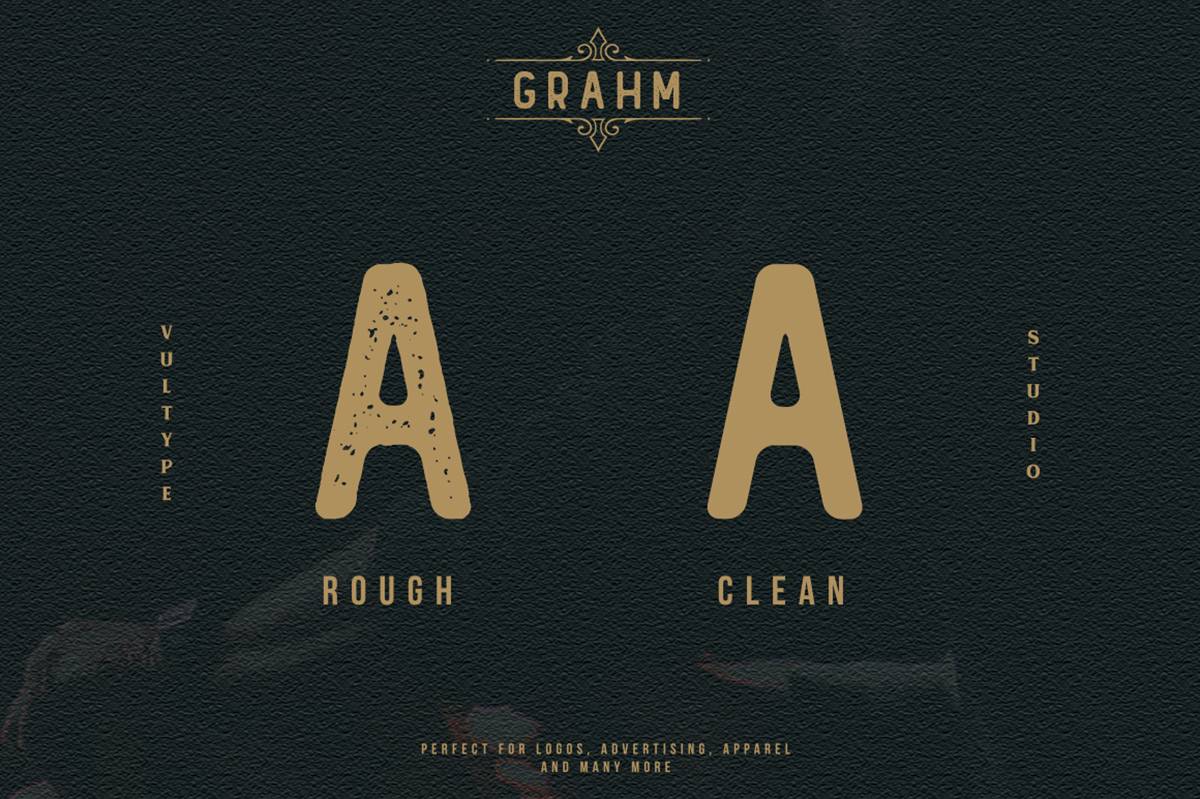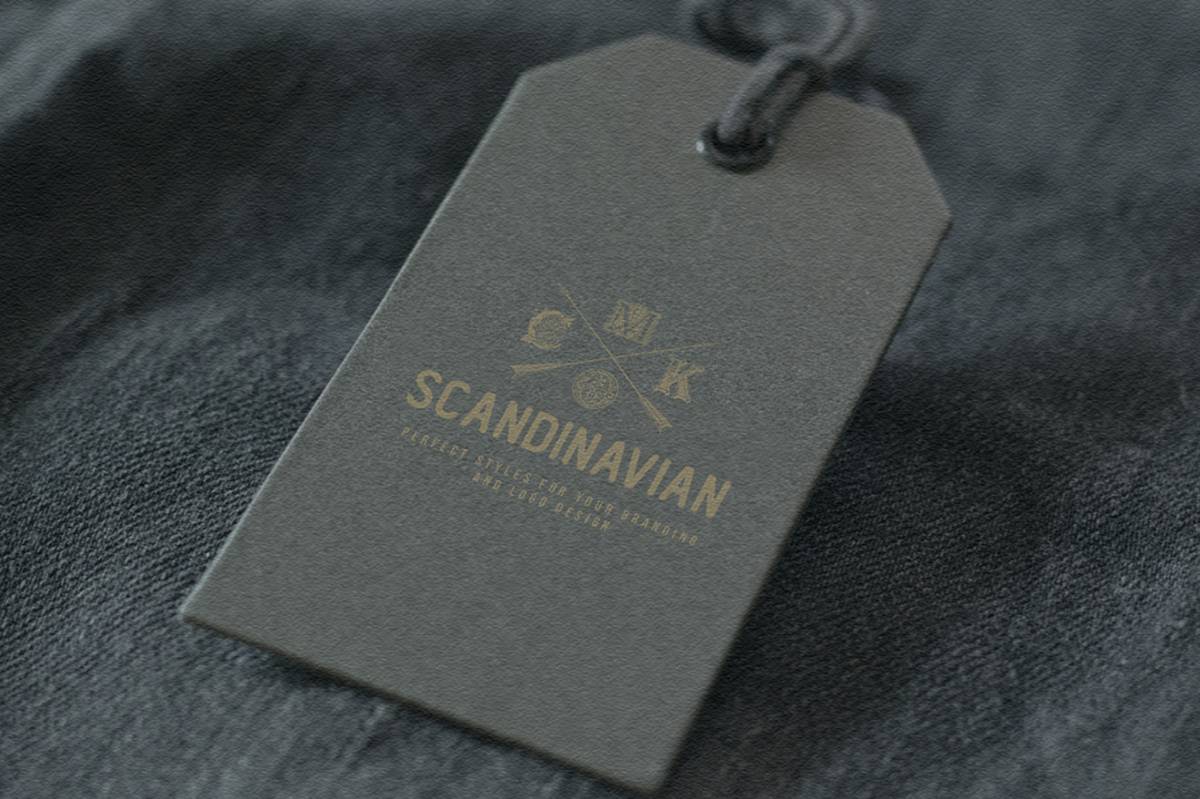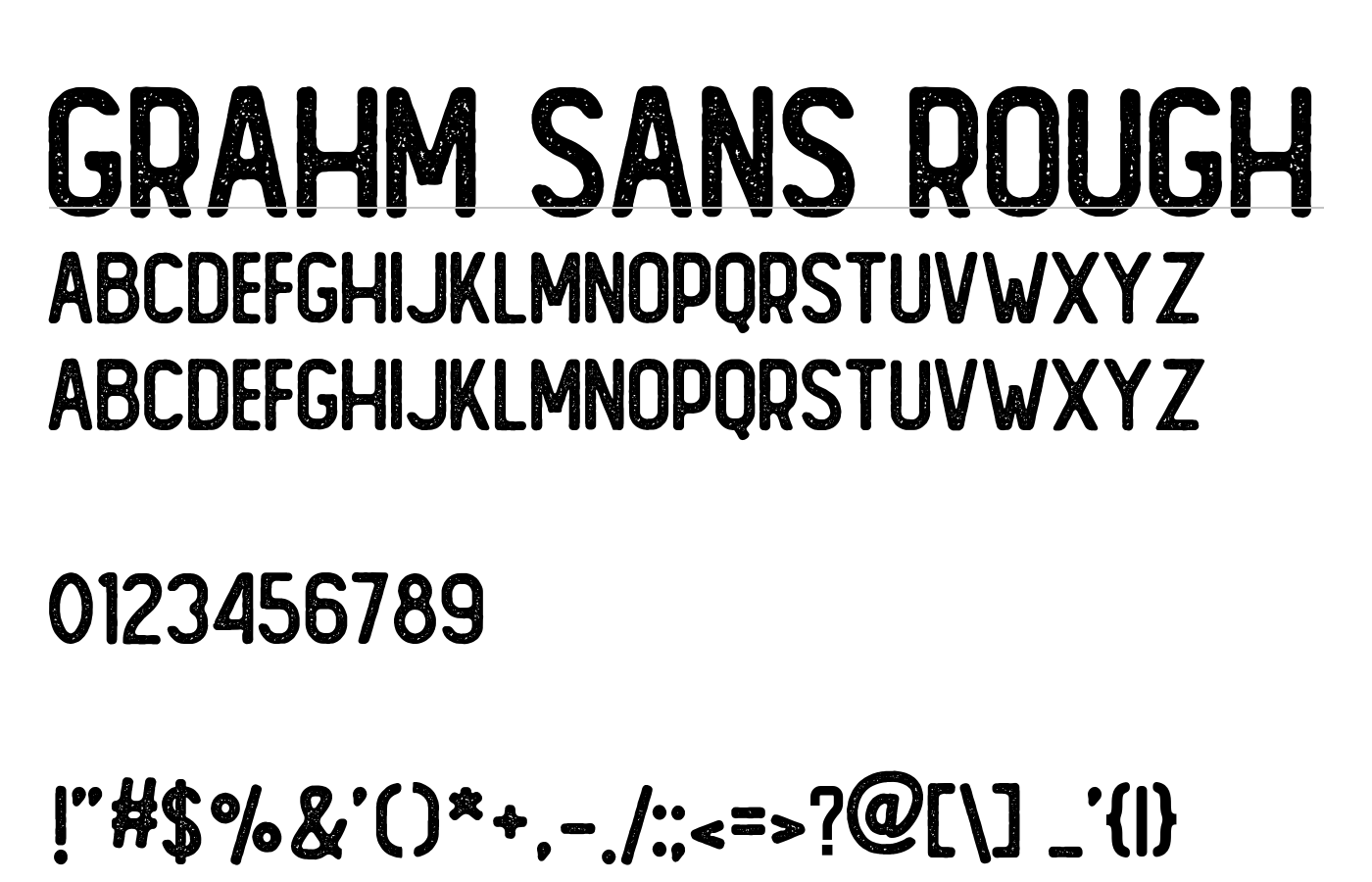
Grahm Sans Rough is a bold, condensed sans-serif font characterized by its textured, distressed appearance that adds a vintage, hand-crafted feel. Its tall, narrow letterforms and consistent stroke weight create a sturdy yet approachable style, making it ideal for eye-catching headlines, logos, and packaging that seek to convey authenticity and rugged charm. This font works well in designs aiming for a casual, retro vibe with strong visual impact.
Grahm Font
About Grahm Font
| Font family | Grahm Font |
| Designer | Vultype Co |